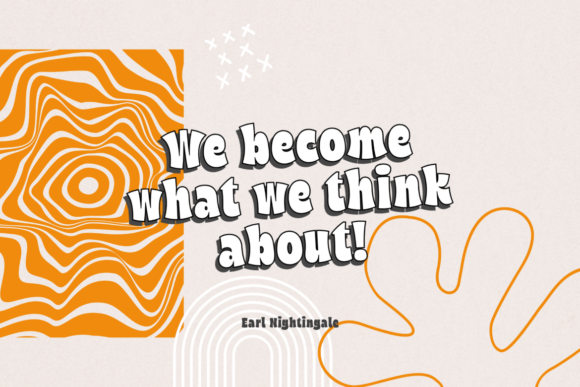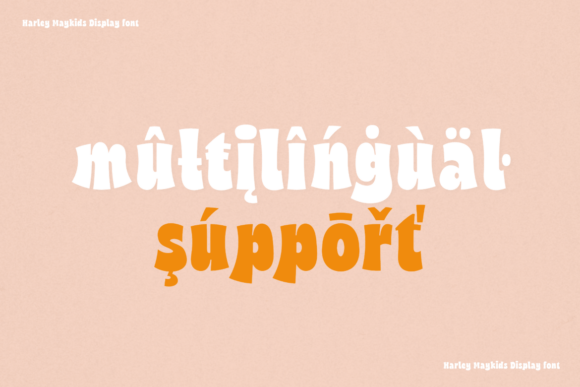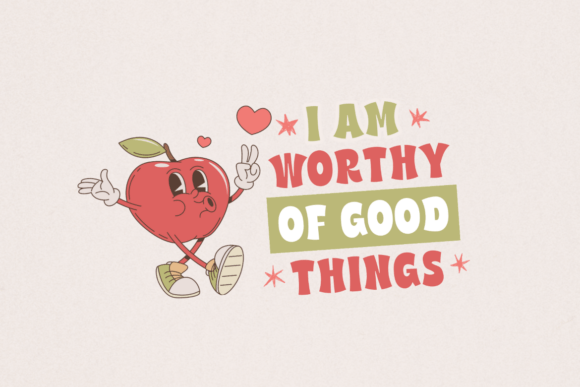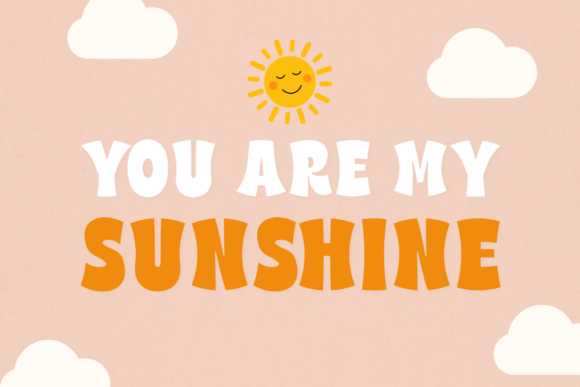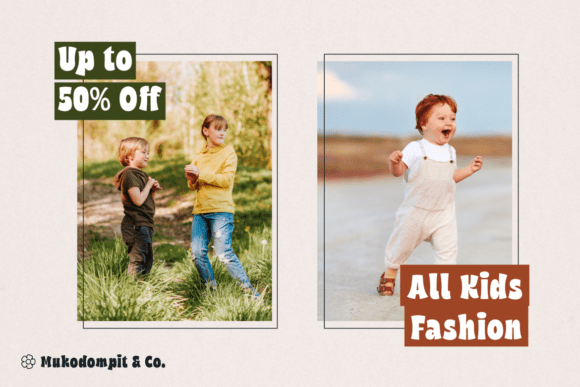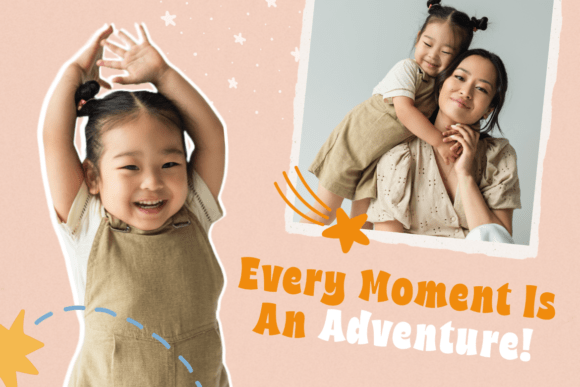
Introducing Harley Maykids Font: The Ultimate Playful Display Font for Kids Branding and More
Are you a designer or crafter looking for a font that can add a playful and energetic touch to your designs? Look no further than the Harley Maykids Font! This bold and playful display font is perfect for kids branding, snack and food packaging, playful logos, posters, merchandise, and eye-catching headlines.
What Makes Harley Maykids Font So Special?
Harley Maykids Font features chunky shapes, soft curves, and a cheerful retro-inspired style that is sure to make your designs stand out. Its friendly and bubbly letterforms bring a fun, energetic personality that makes any design feel more lively, warm, and memorable. Whether you’re creating a logo for a kids’ brand, designing packaging for a snack or food product, or creating a poster or merchandise for a fun event, Harley Maykids Font is the perfect choice.
Key Features of Harley Maykids Font
- Bold and Playful: Harley Maykids Font is a bold and playful display font that is perfect for making a statement.
- Chunky Shapes: The font features chunky shapes that give it a fun and energetic feel.
- Soft Curves: The soft curves in the font add a touch of warmth and friendliness to your designs.
- Retro-Inspired: The font has a cheerful retro-inspired style that is sure to bring a smile to your audience’s faces.
- Multipurpose: Harley Maykids Font is perfect for a variety of design projects, including kids branding, snack and food packaging, playful logos, posters, merchandise, and eye-catching headlines.
Why Choose Harley Maykids Font?
There are many reasons why designers and crafters should choose Harley Maykids Font for their design projects. Here are just a few:
- Unique and Memorable: The font’s unique and playful style is sure to make your designs stand out and be remembered.
- Easy to Read: Despite its bold and chunky style, Harley Maykids Font is easy to read, even at smaller sizes.
- Versatile: The font is versatile and can be used for a wide range of design projects, from kids branding to posters and merchandise.
- Fun and Energetic: The font’s fun and energetic personality is sure to bring a smile to your audience’s faces and make your designs more engaging.
How to Use Harley Maykids Font
Harley Maykids Font is easy to use and can be incorporated into a variety of design projects. Here are a few ideas to get you started:
- Kids Branding: Use Harley Maykids Font to create a logo or branding materials for a kids’ product or service.
- Snack and Food Packaging: The font is perfect for designing packaging for snack or food products, such as cereals, candies, or baked goods.
- Playful Logos: Use Harley Maykids Font to create a playful and energetic logo for a company or product.
- Posters and Merchandise: The font is great for creating eye-catching posters, t-shirts, and other merchandise for fun events or promotions.
In conclusion, Harley Maykids Font is a bold and playful display font that is perfect for designers and crafters looking to add a fun and energetic touch to their designs. With its chunky shapes, soft curves, and cheerful retro-inspired style, this font is sure to make your designs stand out and be remembered. Whether you’re creating a logo for a kids’ brand, designing packaging for a snack or food product, or creating a poster or merchandise for a fun event, Harley Maykids Font is the perfect choice.